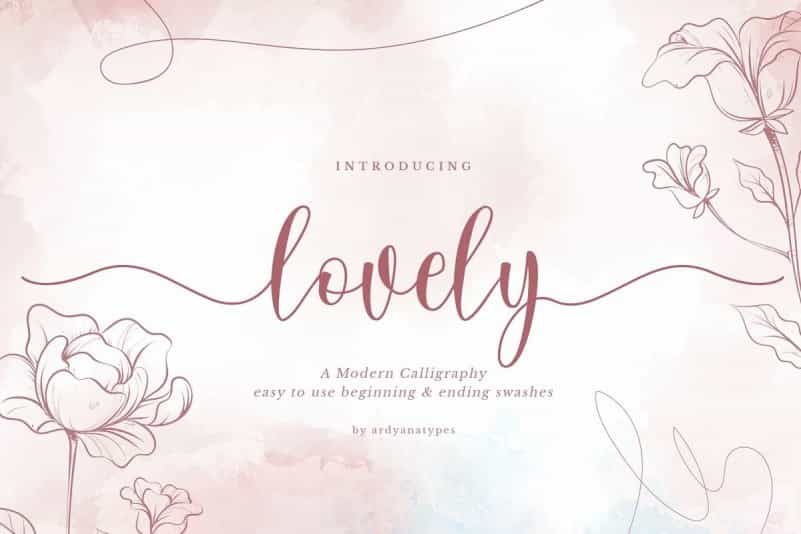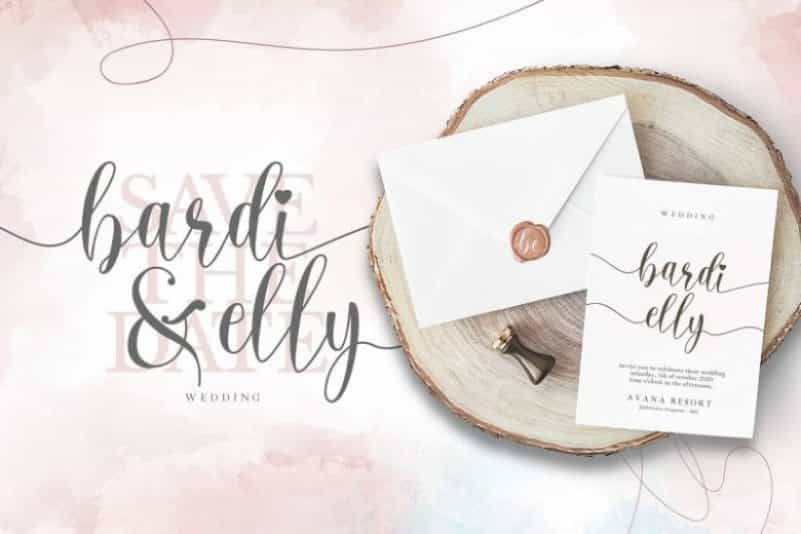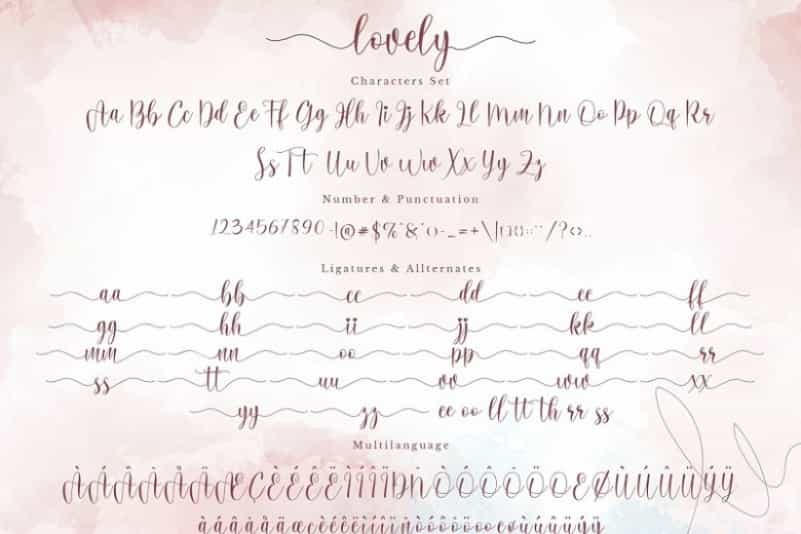
A font named Lovely, which is designed with a special touch for an elegant and attractive effect, Type of modern calligraphy also included in Lovely, it is very suitable for use in all manner designs such as poster design, signature, logo, quote, album cover, business card, product design and many other design projects.